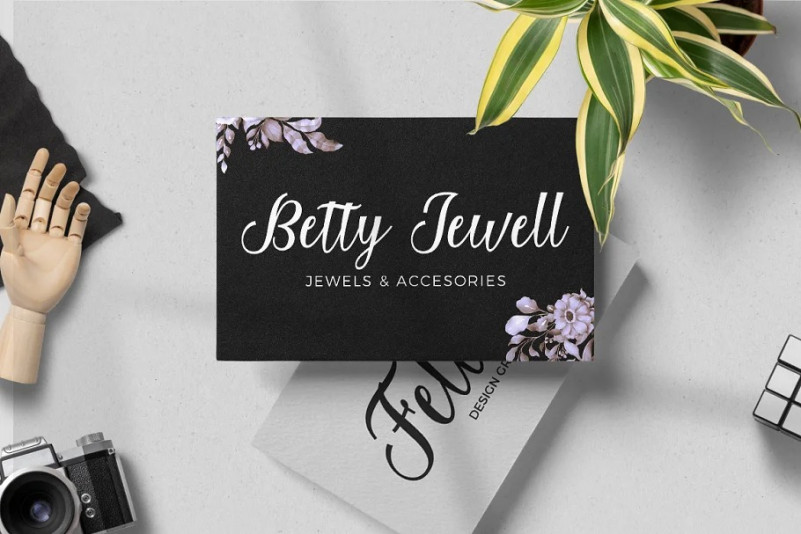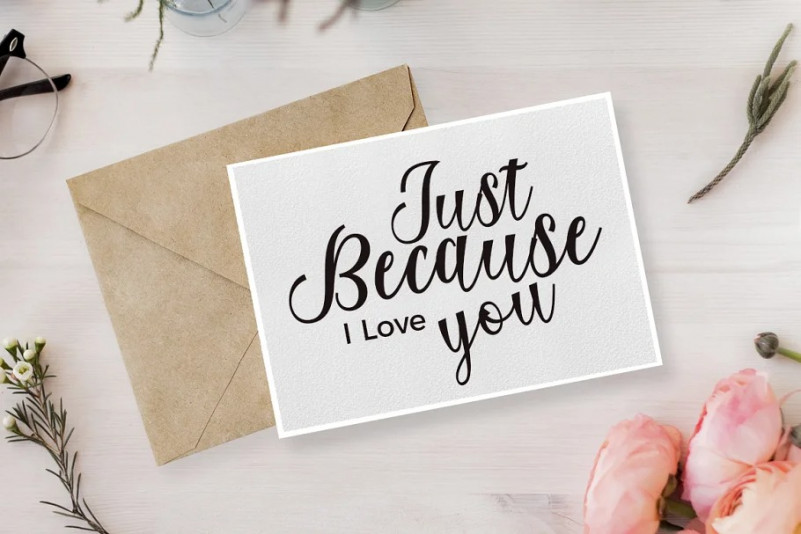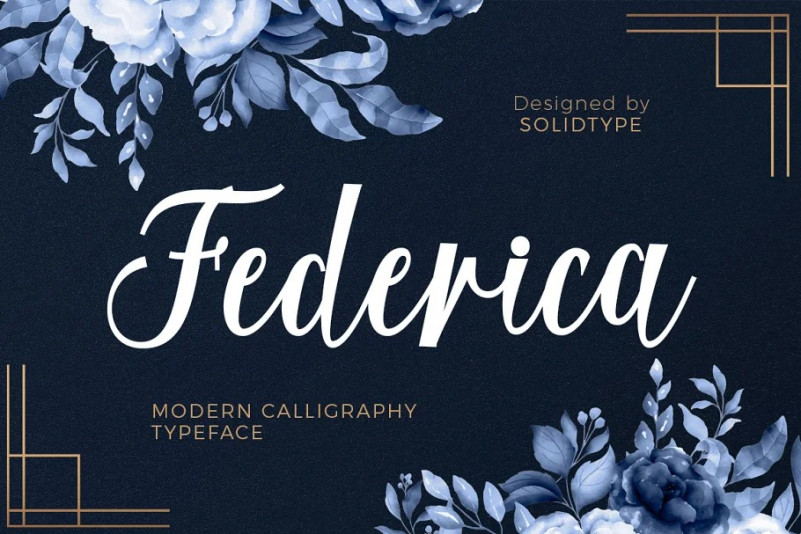
Federica Font
Federica Script Font is a cute modern calligraphy font with a dancing base line. This sweet font has nice, fine lines and is perfect for artisans and machine cutters. Federica Script will look beautiful on cards, mugs, quotes, logos, and all your other beautiful projects.
Federica Script contains standard characters, lowercase letters, uppercase letters, numbers, punctuation marks, binders, international characters.